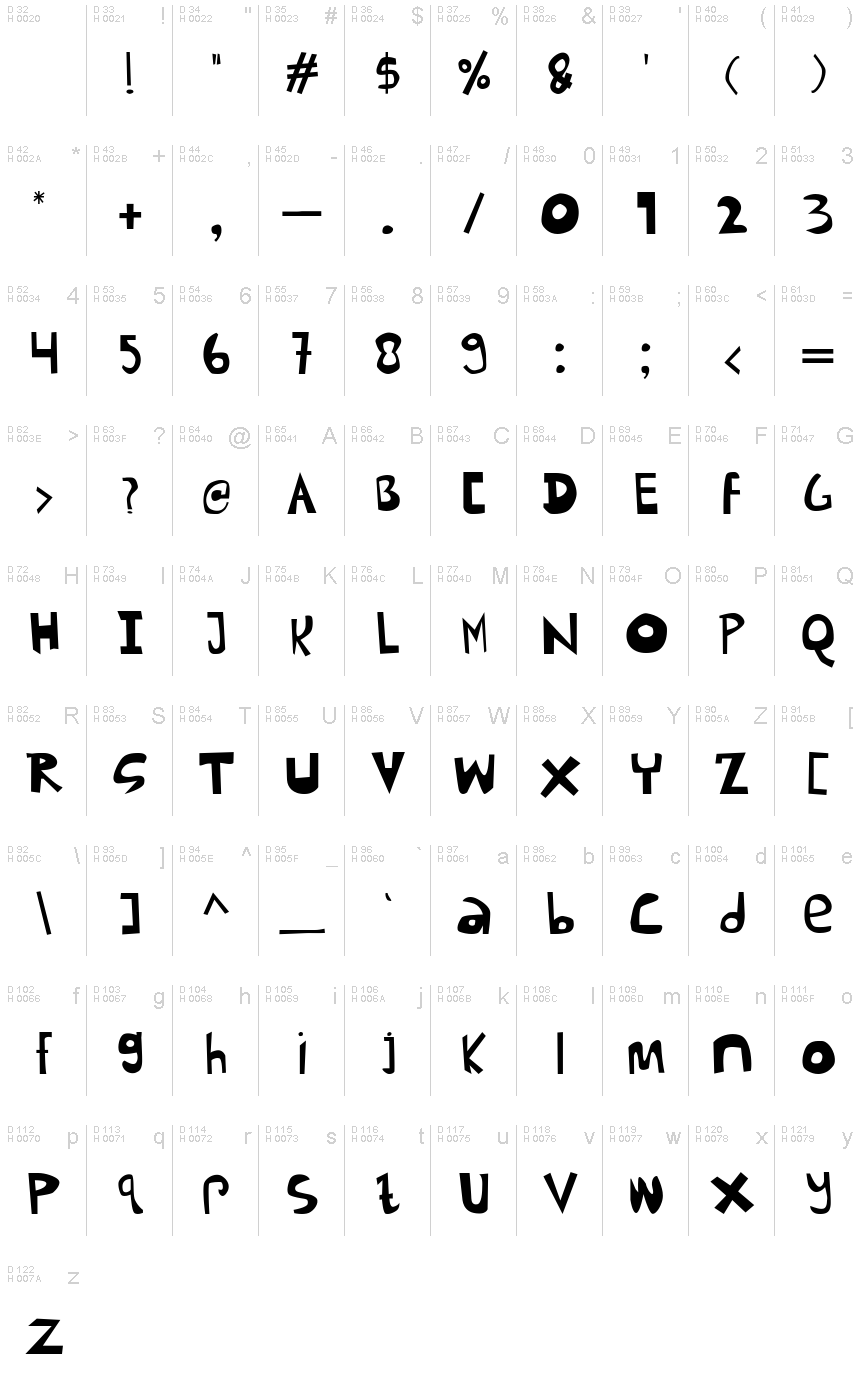
Kendrew Demo
Kendrew, a captivating display font crafted by madeDeduk, exudes a delightful, cartoon-inspired essence. Its playful, organic strokes and whimsical curves evoke a sense of lightheartedness and joy, making it an engaging choice for a wide range of creative projects.
This versatile font shines in attention-grabbing headlines, playful branding, and captivating illustrations. Its distinctive personality lends itself well to children's books, greeting cards, and other designs that aim to capture a cheerful, imaginative spirit. Kendrew's adaptability ensures it can seamlessly integrate into various design contexts, from vibrant packaging to lively social media graphics, leaving a memorable impression on audiences.